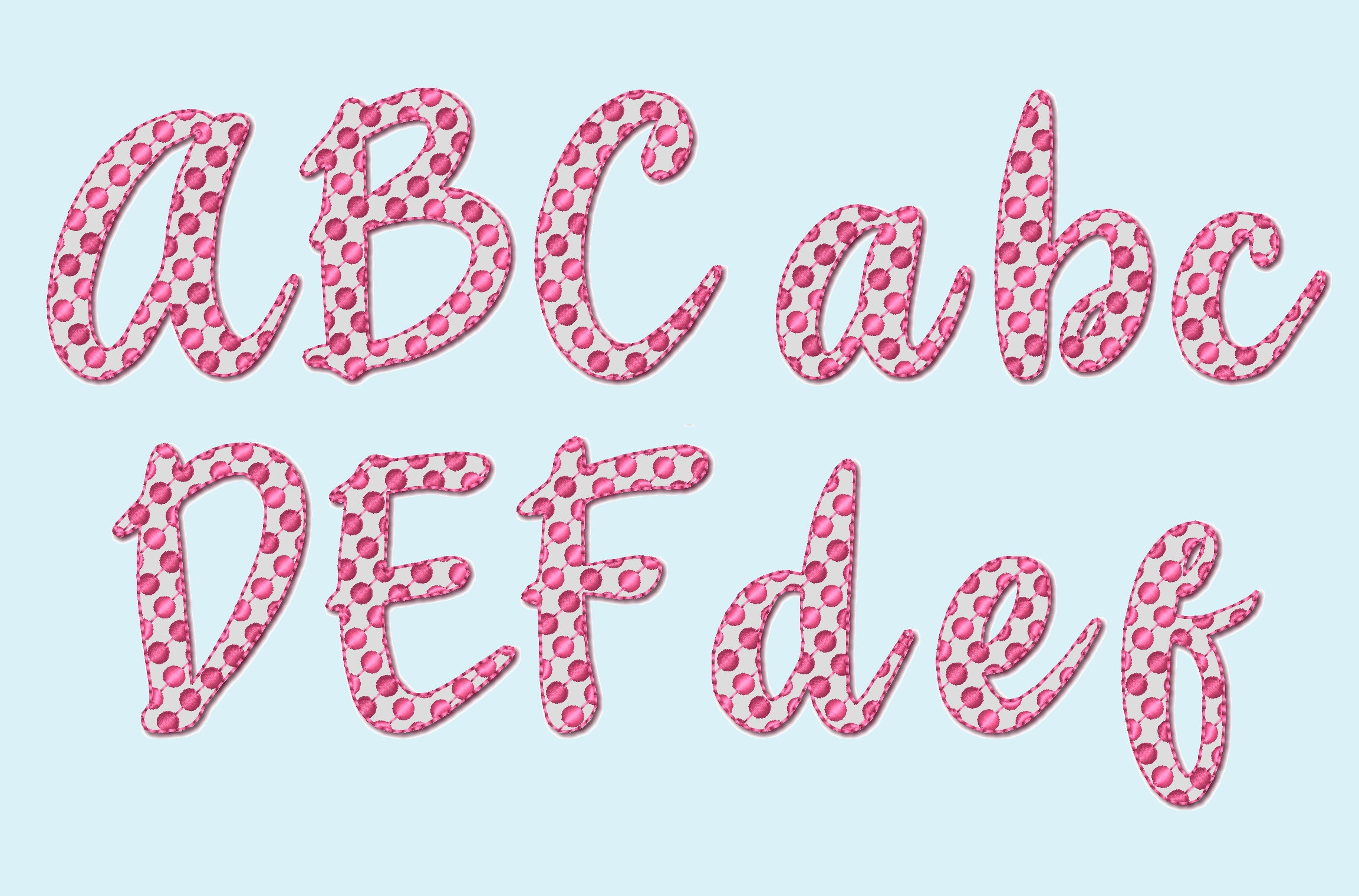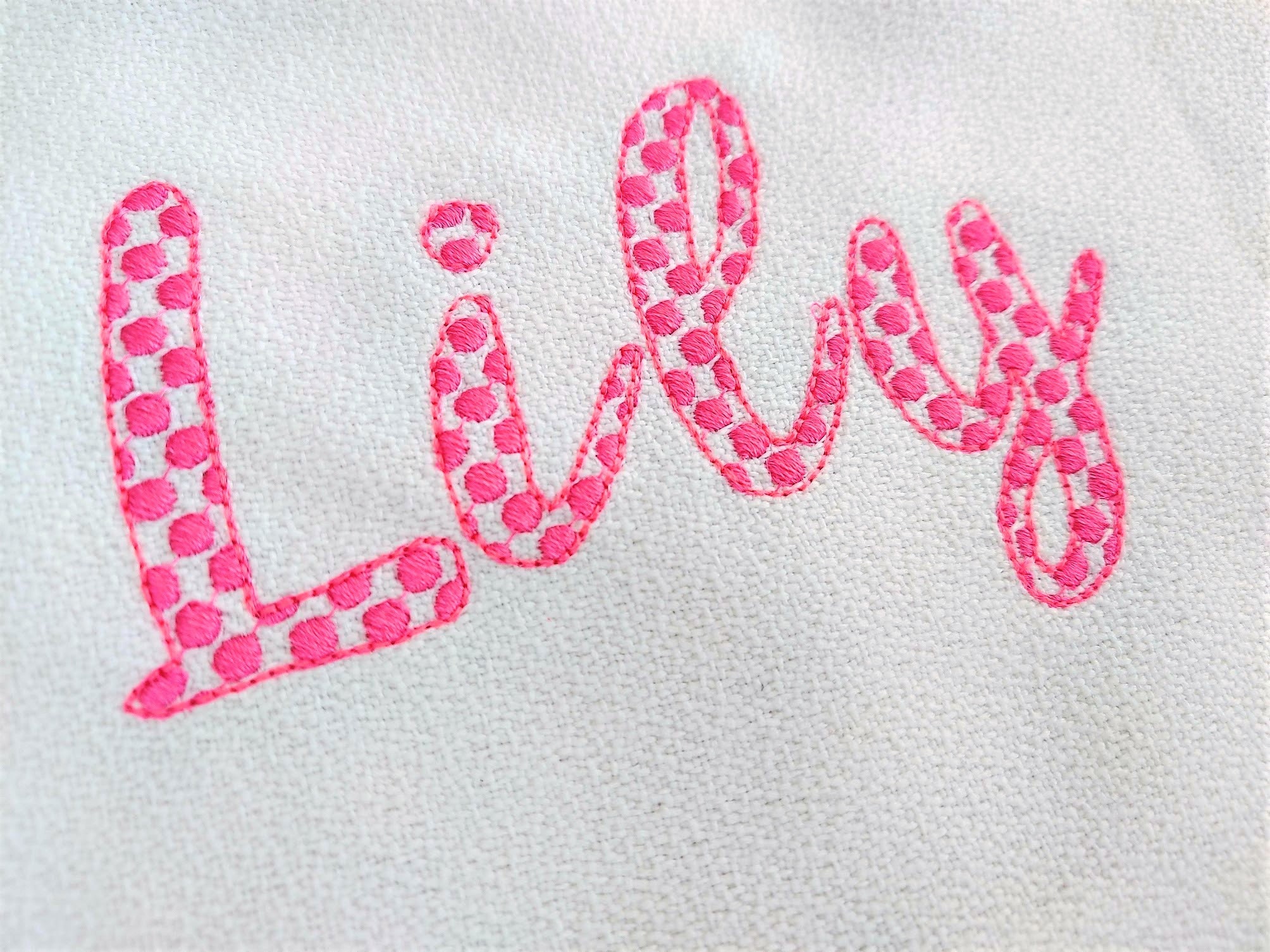
Polka DOT Minnie mouse kids cursive Font light sketch outline machine embroidery designs alphabet letters in sizes 1.5, 2, 3, 4 inches, BX!
This is a quick stitch design, the letters look like laces, and the background fabric looks through. Stunning effect!
Polka dots are part of the embroidery.